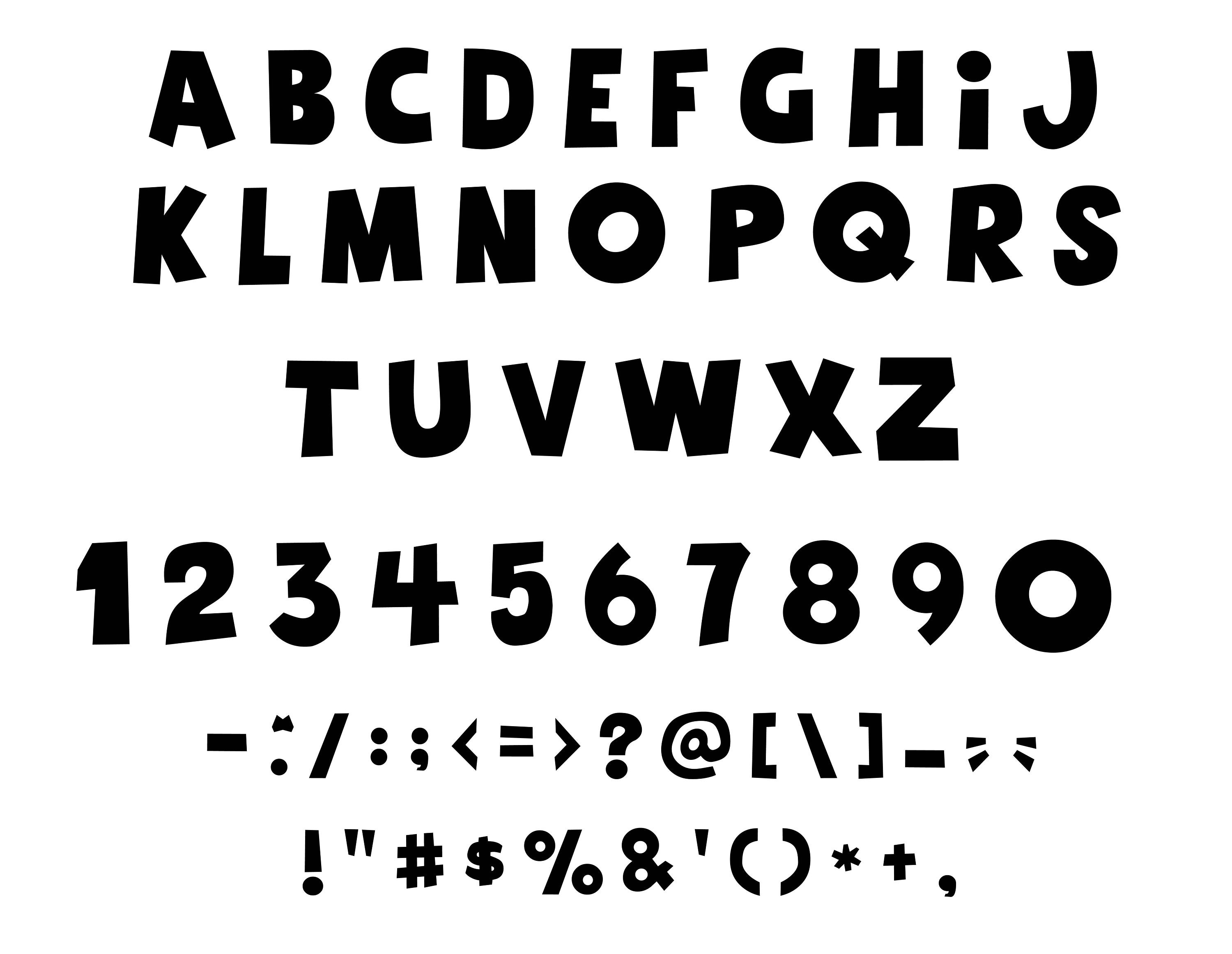
Toy Story Font Letters . Use the text generator to convert your. The toy story logo was designed using two distinct styles of lettering. Find out the fonts used in the toy story logo and movie titles, and download them for free. The toy story logo was designed using two distinct styles of lettering. Create a toy story like logo with this online tool. Learn how to install them on your computer and customize them with a font preview tool. Learn how to create a toy story logo with two fonts: Create your own toy story logo with this online tool that lets you customize fonts, colors, curves, and more. Download your logo as a vector file or use it for personal projects with the free option. This font is inspired by the iconic characters and logo of toy story and has. The “story” portion likely used gill sans bold as its font; Choose from willy and rumble fonts, which resemble the movie title,. Choose a font, enter your text and split it into two lines to get a similar effect. Create cool graphics for toy story font with our text generator and download them for free. Download the toy story typeface from the 1995 disney film and use it for personal and commercial projects.
Learn how to create a toy story logo with two fonts: Create cool graphics for toy story font with our text generator and download them for free. The toy story logo was designed using two distinct styles of lettering. The toy story logo was designed using two distinct styles of lettering. Choose from willy and rumble fonts, which resemble the movie title,. Choose a font, enter your text and split it into two lines to get a similar effect. Find out the fonts used in the toy story logo and movie titles, and download them for free. Download your logo as a vector file or use it for personal projects with the free option. Create your own toy story logo with this online tool that lets you customize fonts, colors, curves, and more. Learn how to install them on your computer and customize them with a font preview tool.
Toy Story Font Letters The “story” portion likely used gill sans bold as its font; Create cool graphics for toy story font with our text generator and download them for free. The “story” portion likely used gill sans bold as its font; Learn how to install them on your computer and customize them with a font preview tool. Choose from willy and rumble fonts, which resemble the movie title,. Find out the fonts used in the toy story logo and movie titles, and download them for free. The “story” portion likely used gill sans bold as its font; Learn how to create a toy story logo with two fonts: Gill sans bold and customized comic lettering. Download the toy story typeface from the 1995 disney film and use it for personal and commercial projects. Create your own toy story logo with this online tool that lets you customize fonts, colors, curves, and more. This font is inspired by the iconic characters and logo of toy story and has. Choose a font, enter your text and split it into two lines to get a similar effect. The toy story logo was designed using two distinct styles of lettering. Use the text generator to convert your. The toy story logo was designed using two distinct styles of lettering.
Toy Story Font Alphabet Letters Toy Story Font Letters Create your own toy story logo with this online tool that lets you customize fonts, colors, curves, and more. The toy story logo was designed using two distinct styles of lettering. This font is inspired by the iconic characters and logo of toy story and has. Create a toy story like logo with this online tool. The toy story logo. Toy Story Font Letters.
Toy Story Font Alphabet png Bundle toy story alphabet toy Etsy Toy Story Font Letters The “story” portion likely used gill sans bold as its font; Create a toy story like logo with this online tool. Learn how to install them on your computer and customize them with a font preview tool. Find out the fonts used in the toy story logo and movie titles, and download them for free. The “story” portion likely used. Toy Story Font Letters.
Toy story font svg letters alphabet toy story birthday party Etsy Toy Story Font Letters The toy story logo was designed using two distinct styles of lettering. Create cool graphics for toy story font with our text generator and download them for free. Choose from willy and rumble fonts, which resemble the movie title,. Use the text generator to convert your. Choose a font, enter your text and split it into two lines to get. Toy Story Font Letters.
Toy Story Font, Alphabet Toys, Cute Fonts, Silhouette Machine, How To Toy Story Font Letters Choose from willy and rumble fonts, which resemble the movie title,. Create cool graphics for toy story font with our text generator and download them for free. Create a toy story like logo with this online tool. Find out the fonts used in the toy story logo and movie titles, and download them for free. Create your own toy story. Toy Story Font Letters.